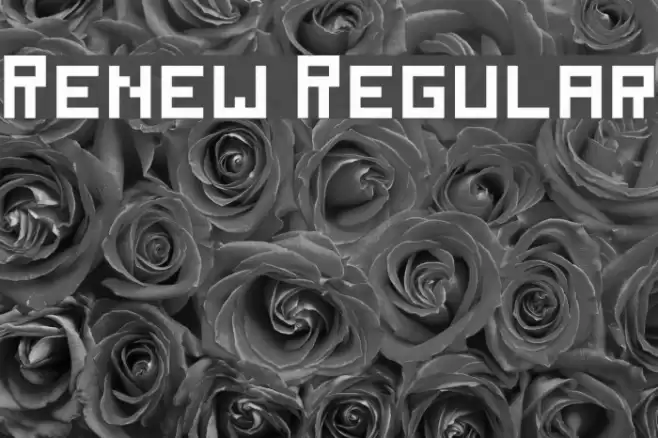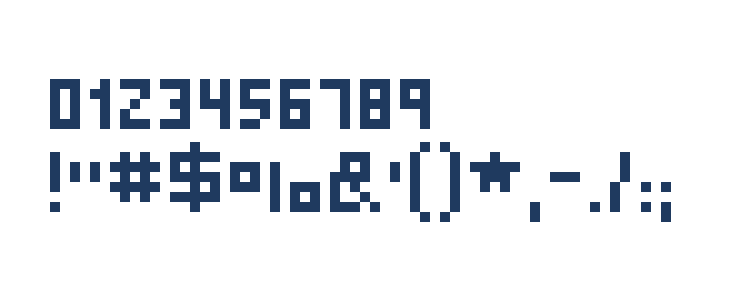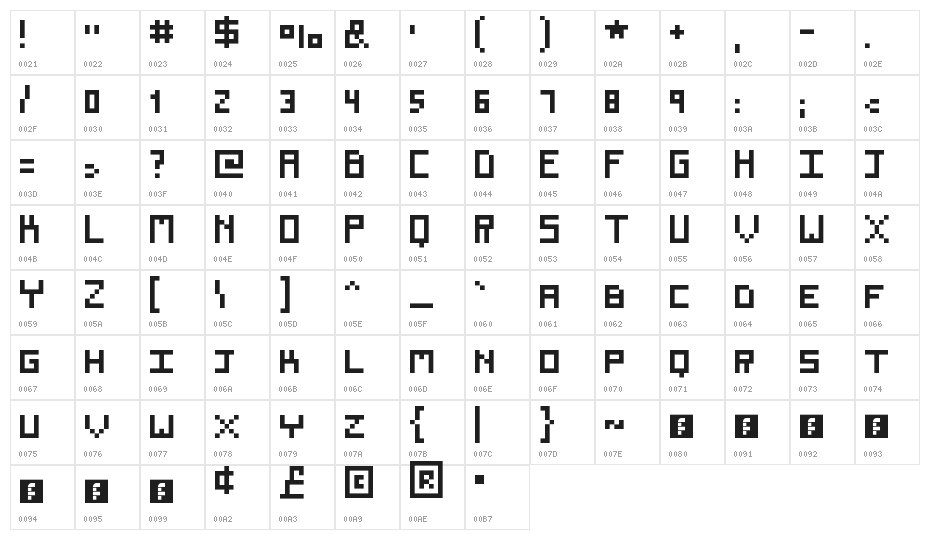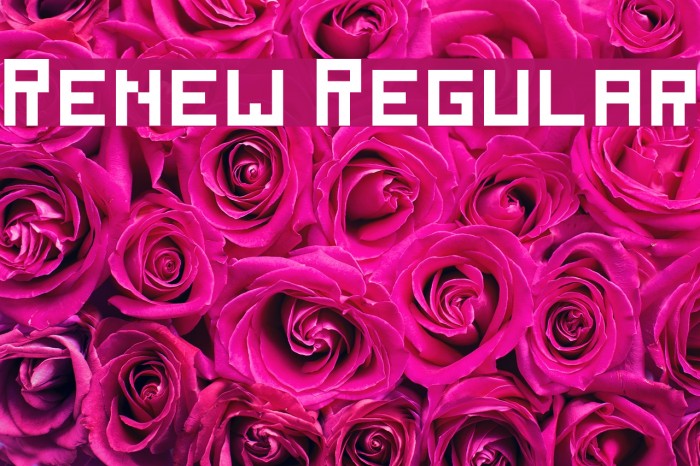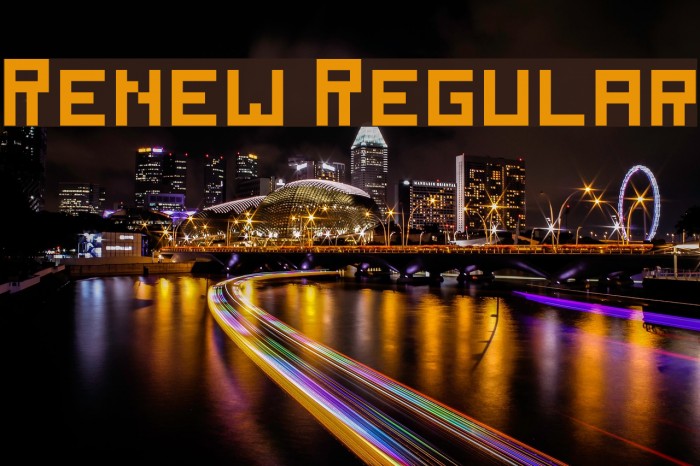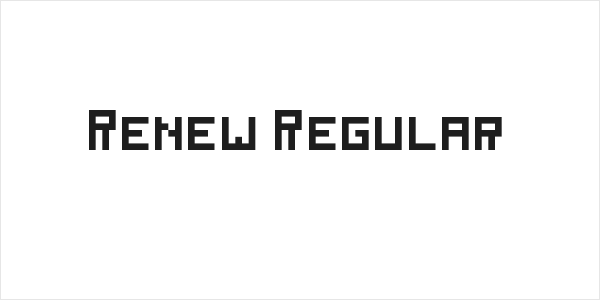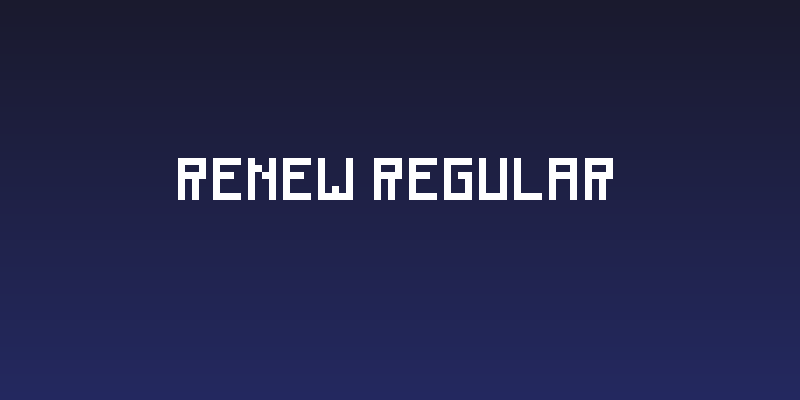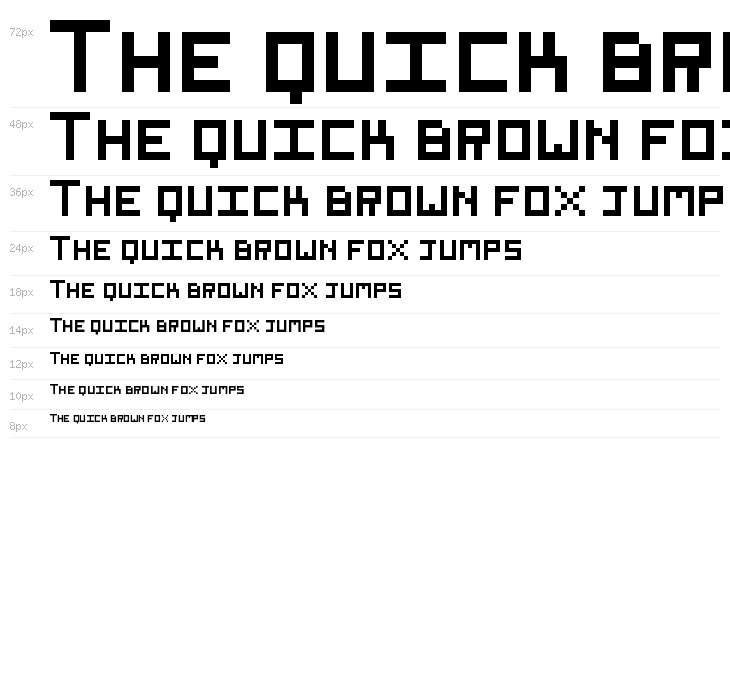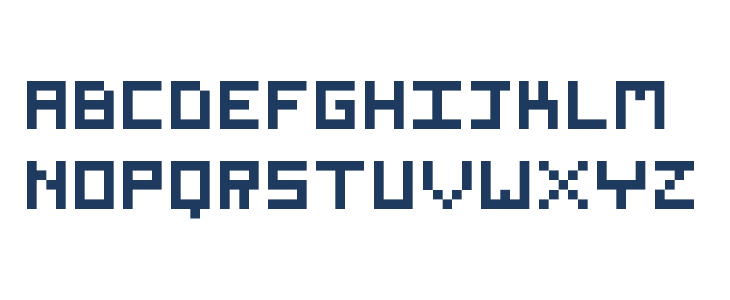
Renew Regular Font
Renew Regular Description
This font features a bold, geometric design with a pixelated, block-like appearance. Each character is constructed with uniform thickness, giving it a digital, retro aesthetic reminiscent of early computer graphics or video game typography. The characters are evenly spaced, contributing to a clean and organized look. The uppercase and lowercase letters maintain a consistent style, enhancing readability while preserving the font's unique character. The numerals and special characters follow the same design principles, ensuring a cohesive visual identity across all elements.
A bold, pixelated font with a retro digital aesthetic from Uncategorized fonts.
- Proposed Projects: Ideal for video game design, digital art projects, retro-themed posters, and tech-related branding.
- Overall Style: Retro, Digital